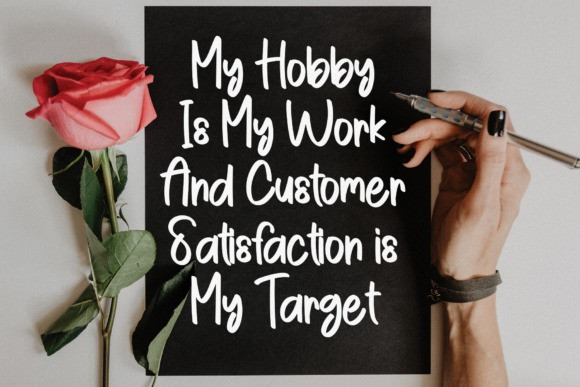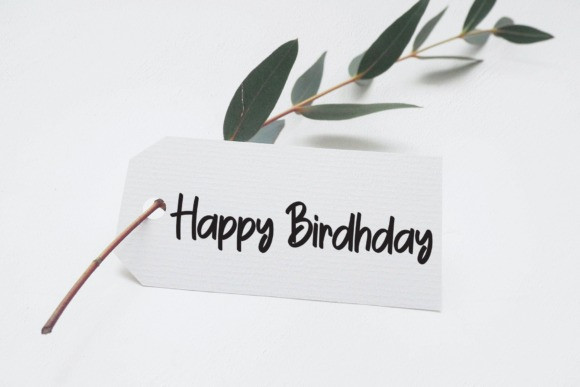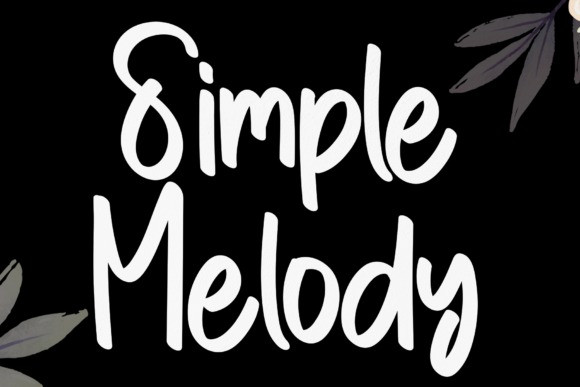
Simple Melody Font
Simple Melody Handwriting Font is a clean and casual handwritten font. Whatever the topic, this font will be a wonderful asset to your font library, as it has the potential to enhance any creation.